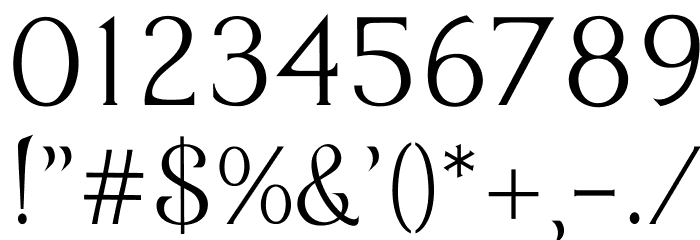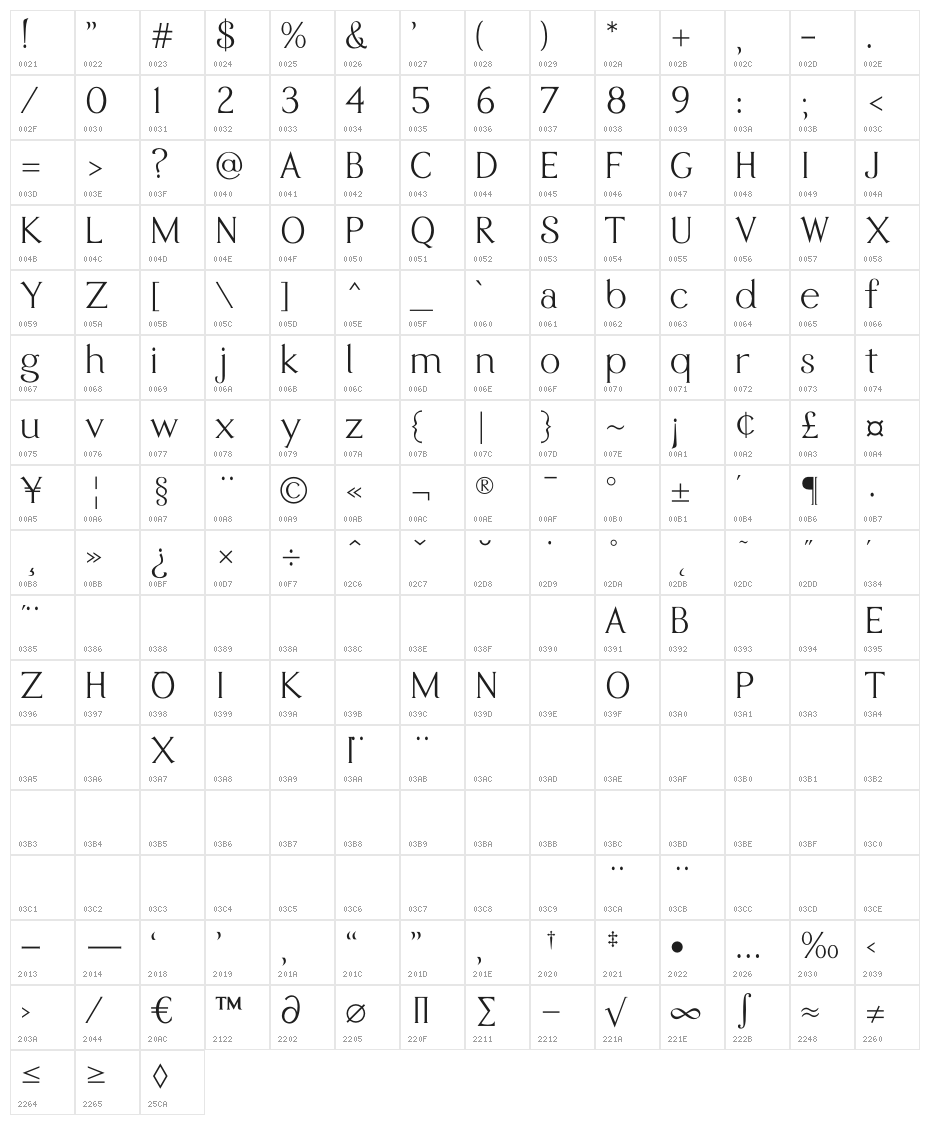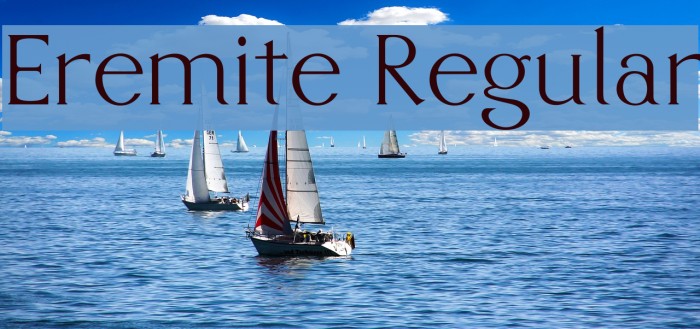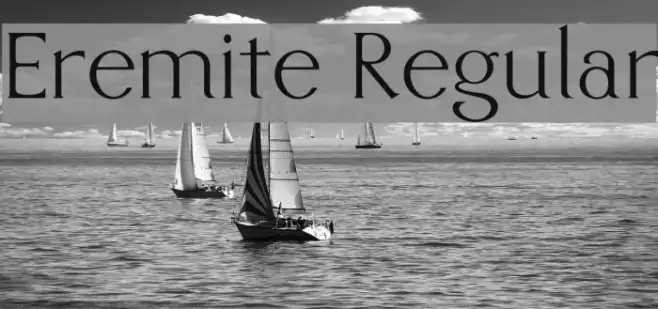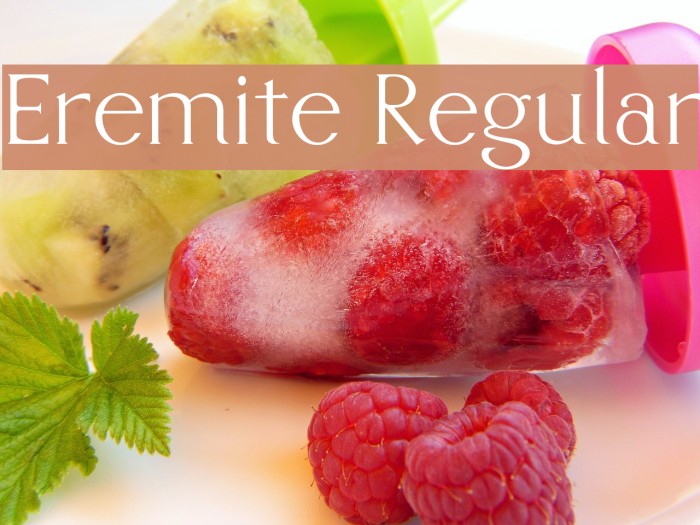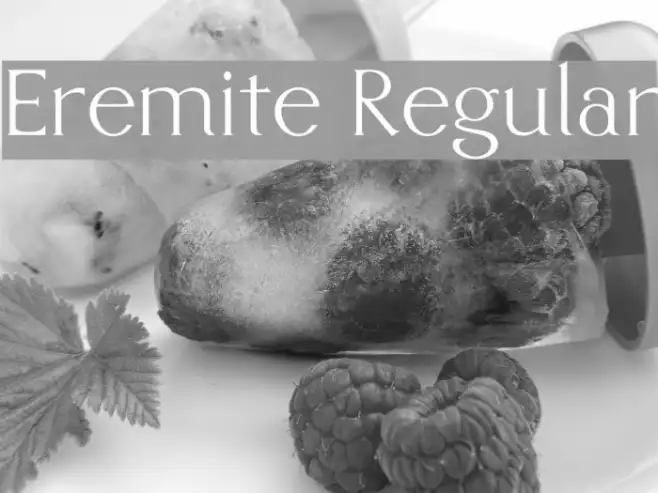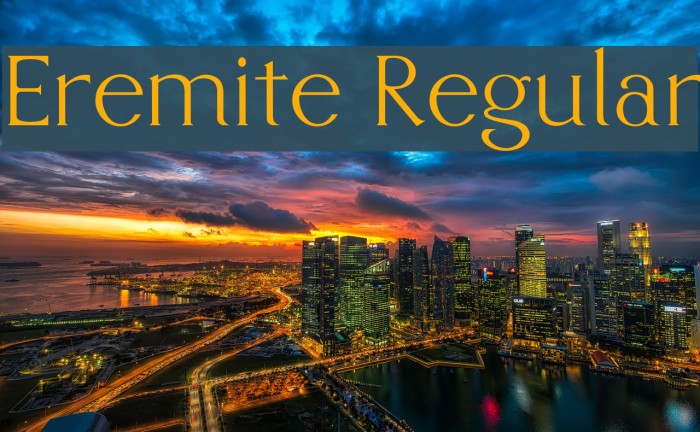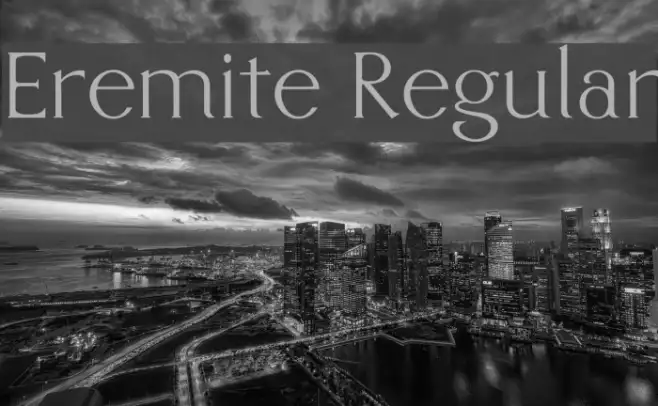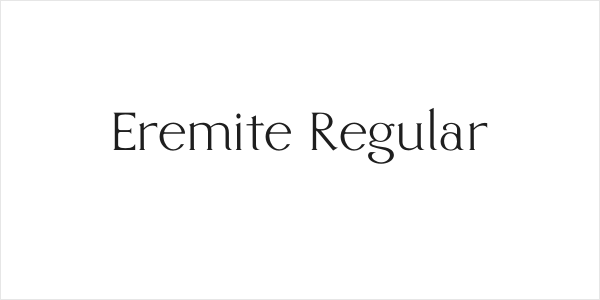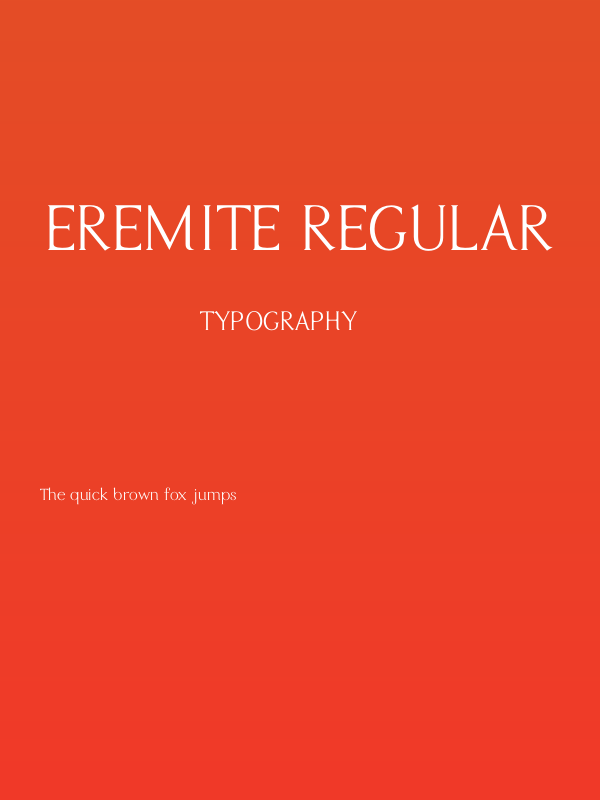
Eremite Regular Font
Eremite Regular Description
This font exhibits a classic serif style with elegant and refined letterforms. The uppercase characters are tall and stately, while the lowercase letters maintain a harmonious balance with subtle curves and a slightly narrow stance. The numerals are clear and distinct, ensuring readability. Special characters are crafted with precision, adding to the font's versatility. The overall design is sophisticated, making it suitable for formal and professional applications.
| Proposed Projects | Ideal for book covers, editorial design, formal invitations, and branding materials. |